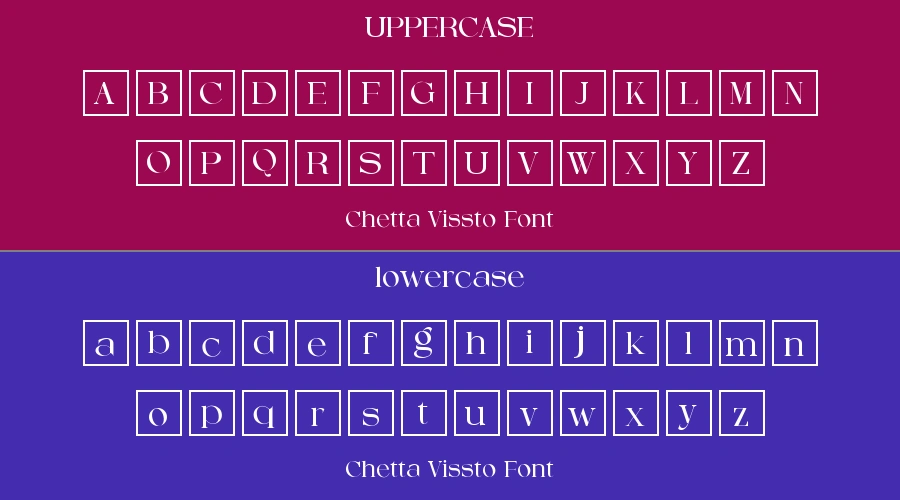
About Chetta Vissto Font
Chetta Vissto Font embodies typographic excellence through its masterful combination of width contrast and quality assurance. Created for financial statements, this typeface delivers exceptional clarity and quality certification across all applications. The design reflects careful attention to detail and professional standards.
Advanced capabilities include distinctive geometric serifs and versatile multiple weights, giving designers creative control. When used in warning labels, Chetta Vissto Font exhibits remarkable scanning accuracy. The harmonious balance between counter size and cultural relevance sets this typeface apart.
Chetta Vissto Font |